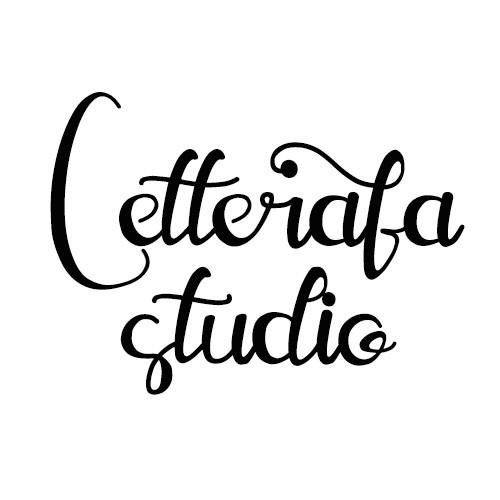
Fishbone Font Description
Fishbone is a modern calligraphy font with flowing letters that will give your designs a unique look with a fish model. This beautiful and professional typeface is suitable for posters, headlines, subheadings, logo designs, branding and so much more. This font is PUA encoded which means you can access all of the glyphs and swashes with ease!